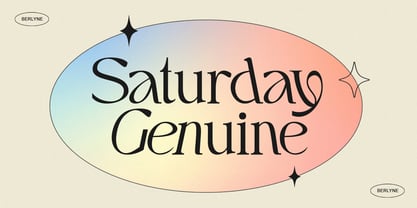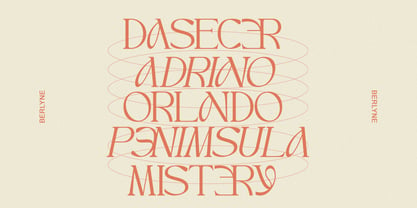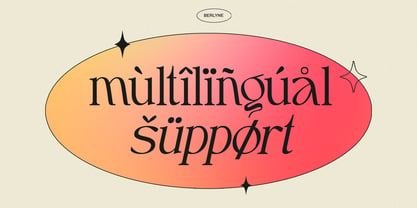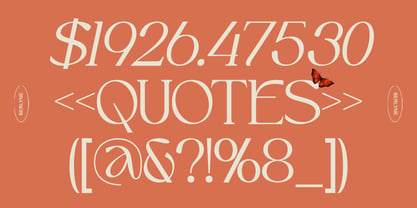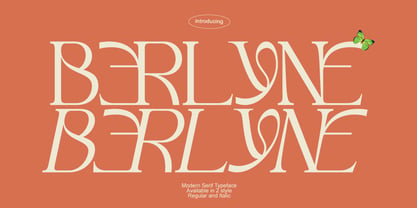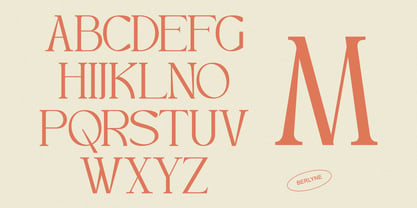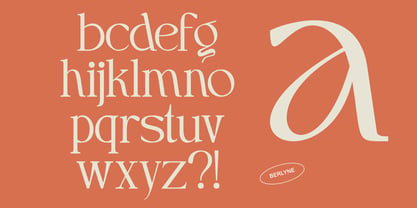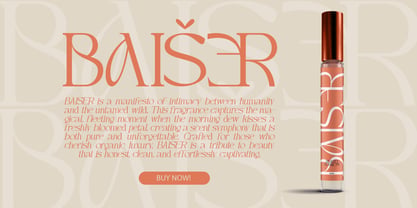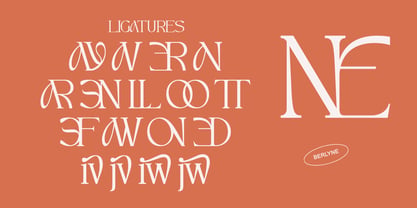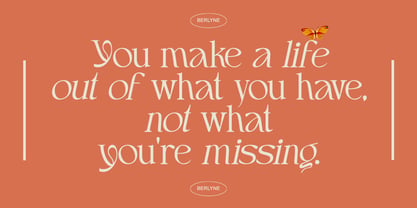
Berlyne
por Ceeskiiw
La familia tipográfica Berlyne fue diseñada por Cees Kiiw y publicada por Ceeskiiw. Berlyne contiene 2 estilos y opciones de paquete familiar. Más información sobre esta familia
Berlyne – Modern Serif Typeface
Berlyne is a sophisticated modern serif typeface designed to bring elegance, refinement, and timeless beauty to creative projects. Featuring graceful high-contrast strokes, elongated proportions, and distinctive organic ligatures, Berlone captures the perfect balance between classic editorial typography and contemporary luxury branding.
Created for designers who appreciate refined details, Berlyne delivers a premium aesthetic that effortlessly enhances logos, fashion campaigns, magazine layouts, beauty packaging, wedding invitations, and social media branding.
Its carefully crafted letterforms feature elegant curves, stylish ligatures, and a clean serif structure, making every headline feel luxurious and memorable.
Whether you're designing for fashion, cosmetics, jewelry, lifestyle brands, or editorial publications, Berlone provides a polished and sophisticated voice that leaves a lasting impression.